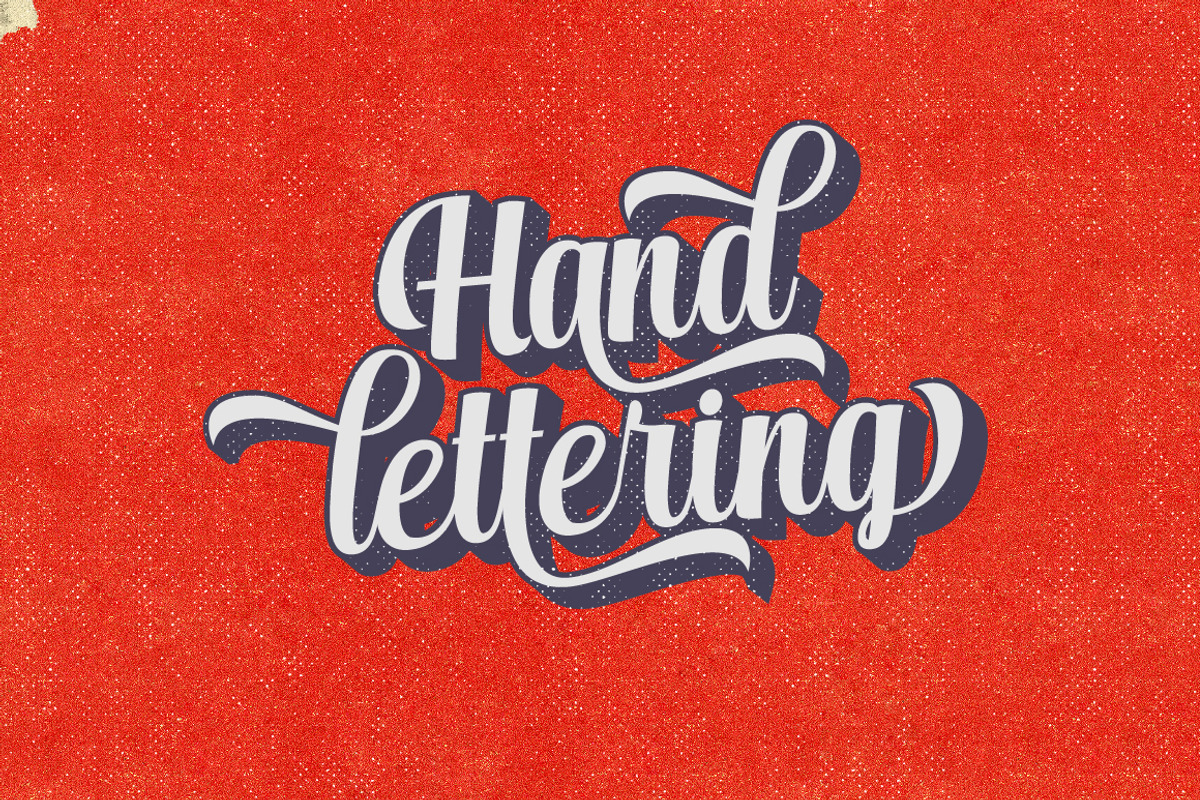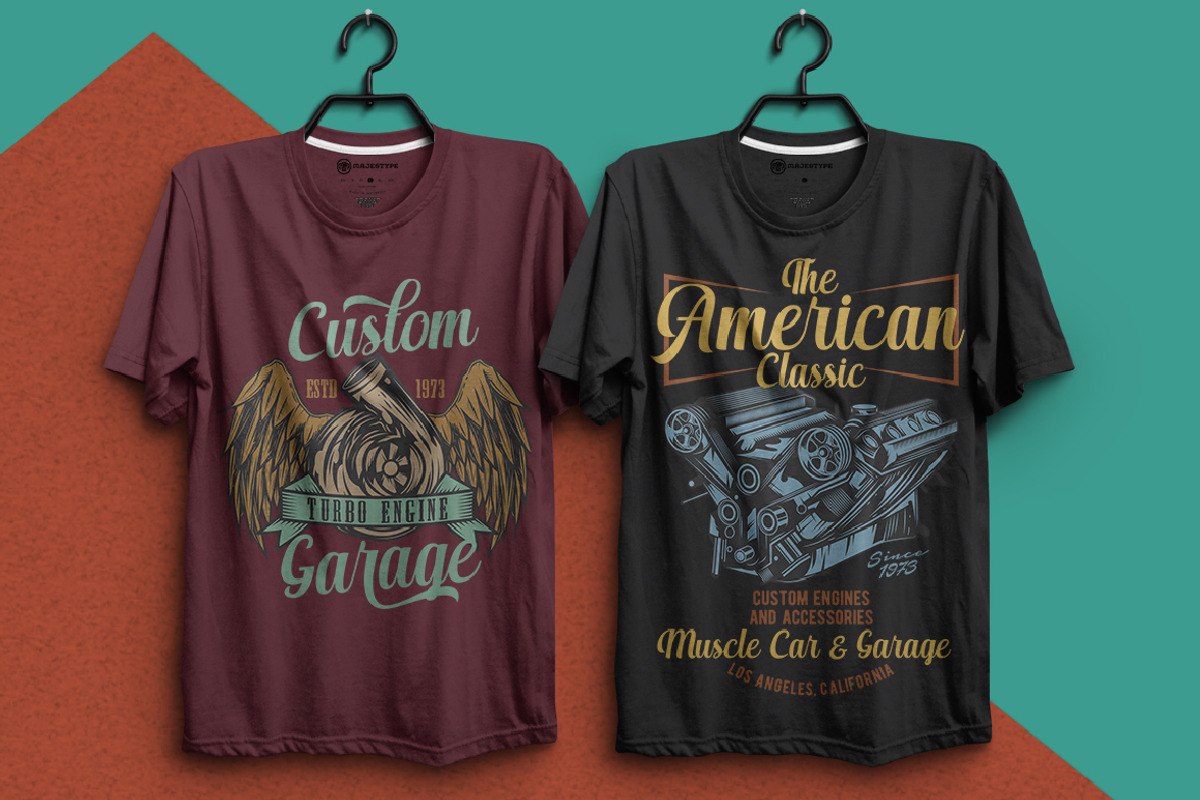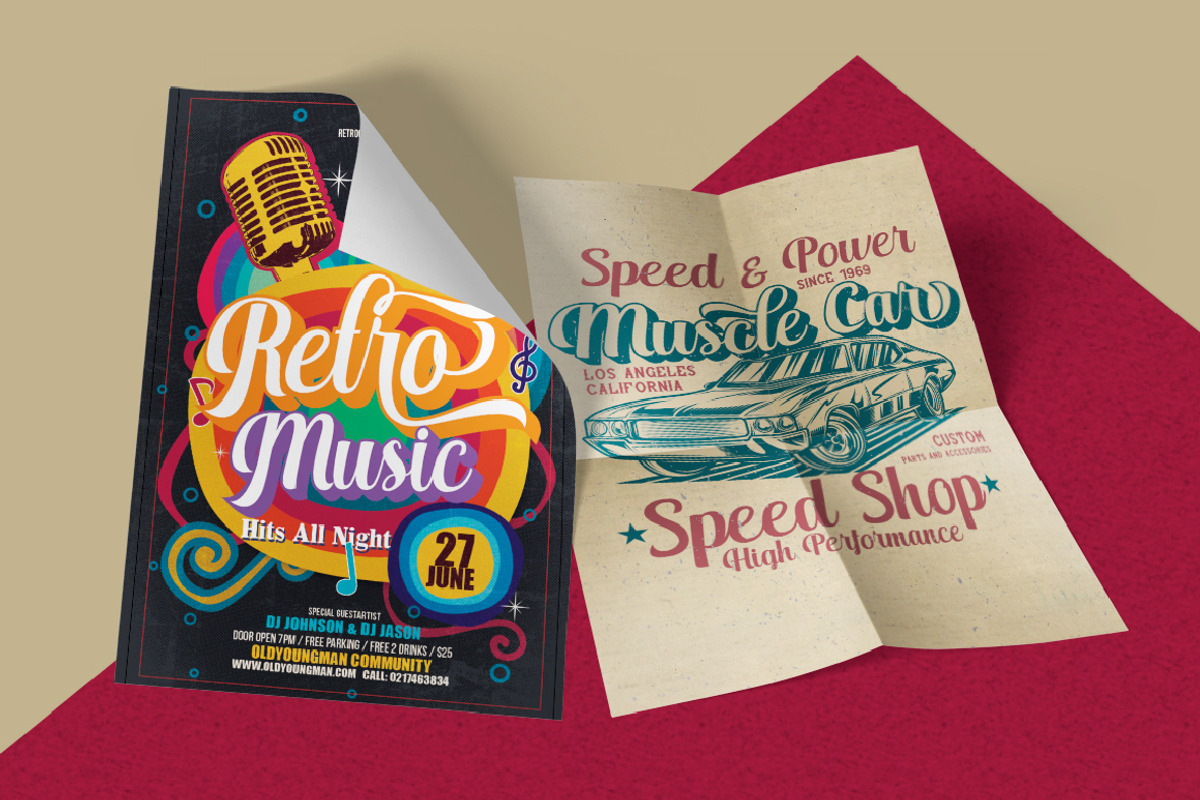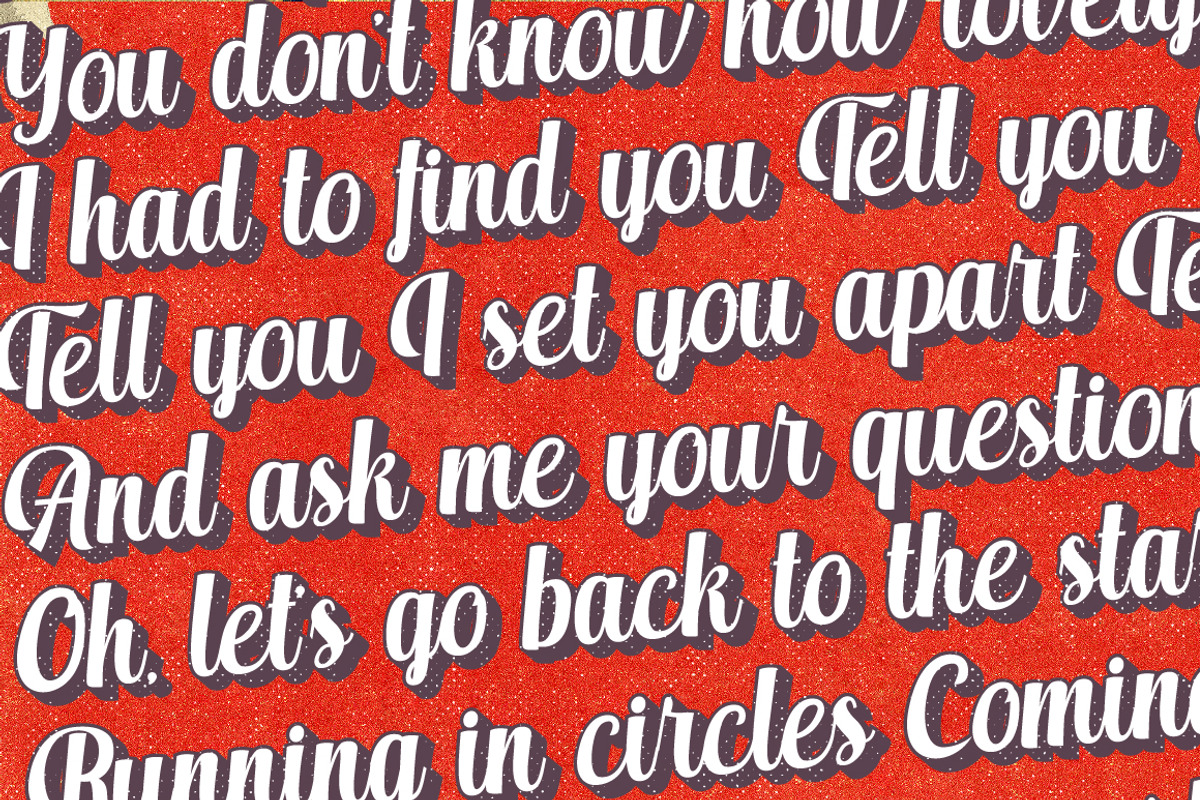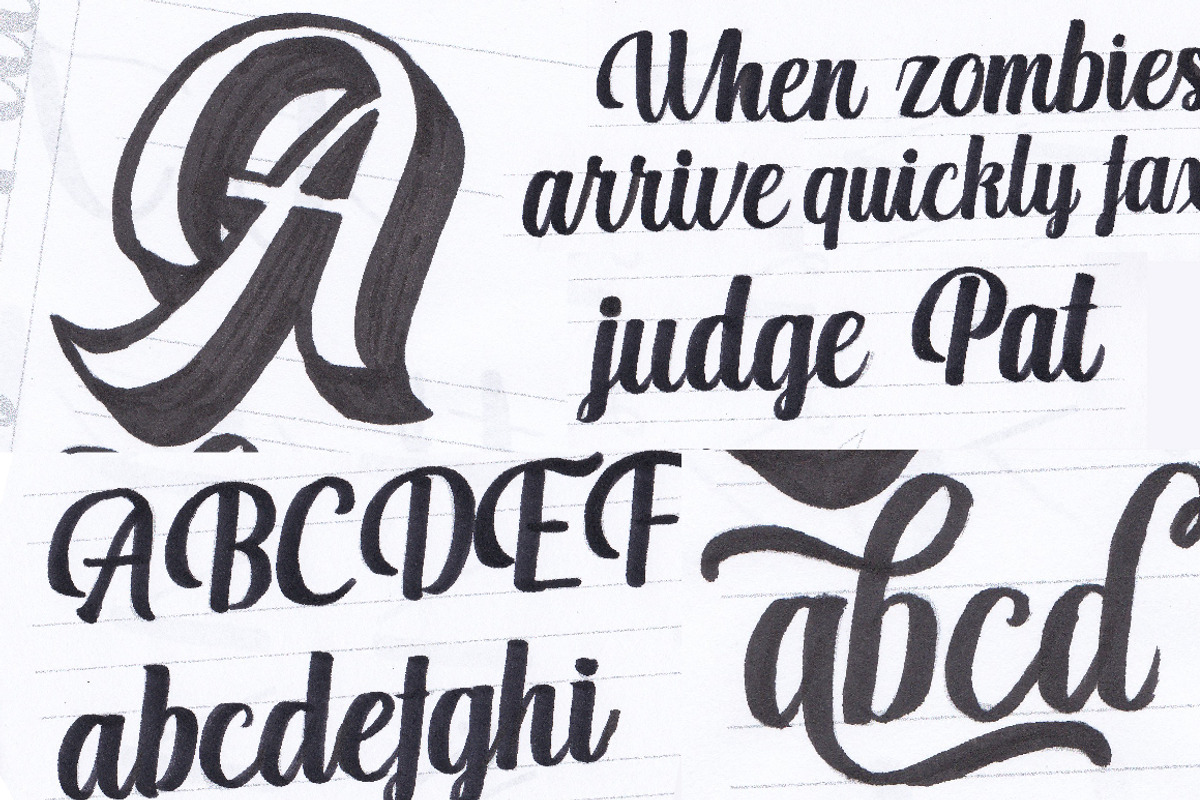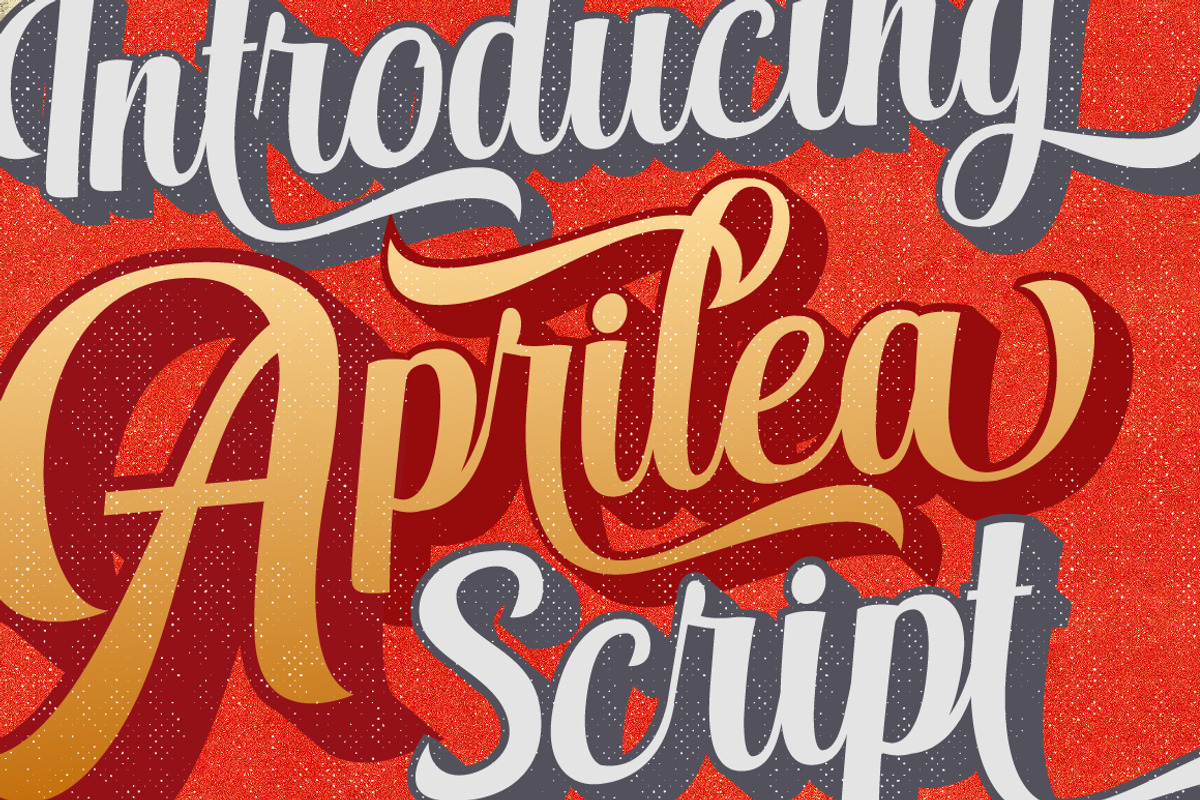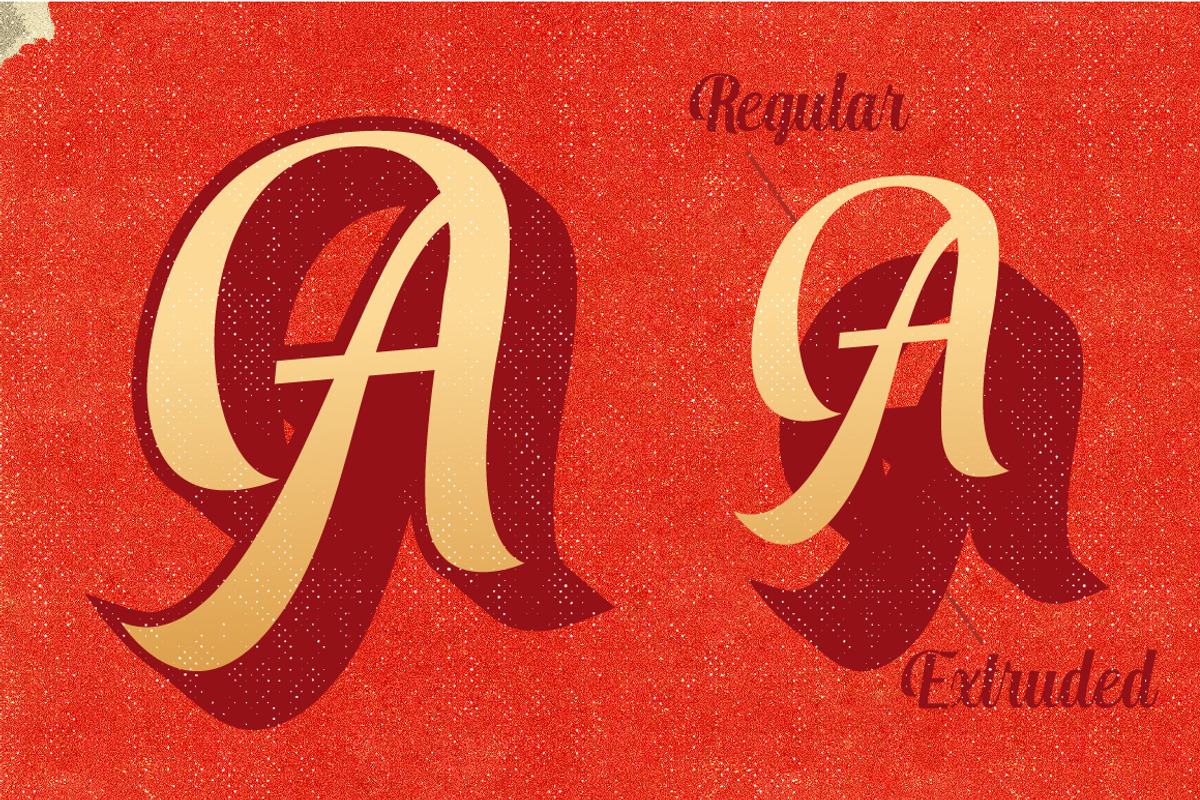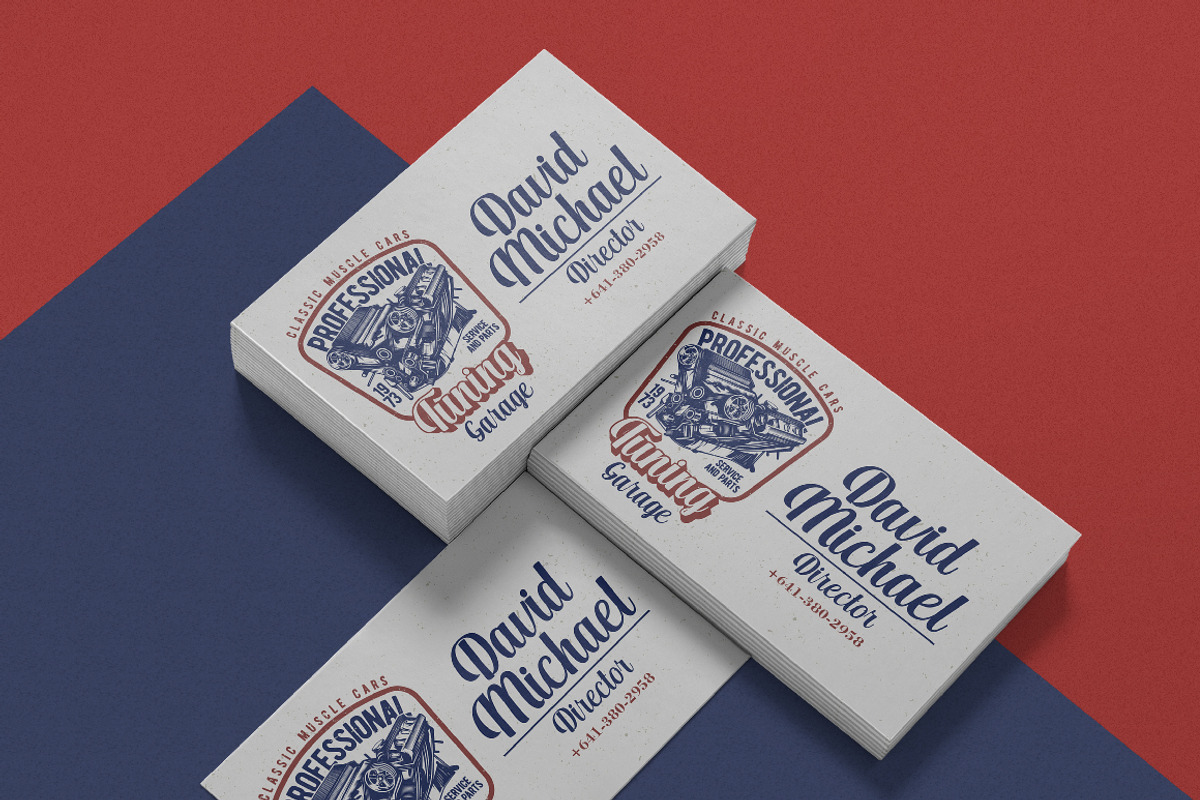
Aprilea Script
Introducing, New Arrival from Debut Studio Aprilea Script. This font has 2 Features, Regular and Extruded, so it can generate interesting fonts to see, you no longer need to worry about how to make effect on the text.
This font is suitable for young, passionate design, such as logo design, t-shirts, branding, and various other design purposes.
- Regular and Extruded
- Alternate Stylistic Character